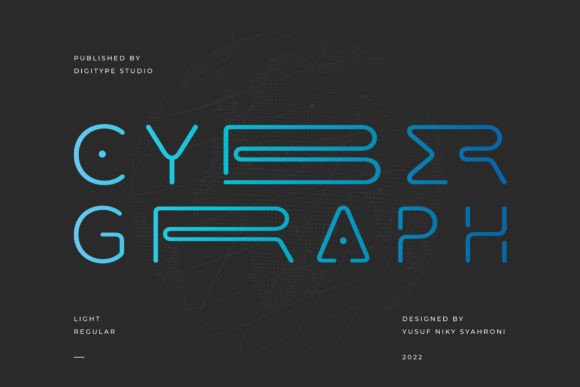
Escape the mundane and venture into a realm of digital allure with Cyber Graph Font, a sans serif masterpiece crafted by Digitype Studio. This font is not just a collection of letters; it's a gateway to a world of captivating designs, where imagination knows no bounds.
Cyber Graph's rounded futuristic strokes exude a modern and bold vibe, instantly transforming your designs into captivating works of art. Its meticulously designed curves evoke a sense of sleekness and sophistication, while its sharp angles add an edge of intrigue.
Cyber Graph is a versatile chameleon, effortlessly adapting to your creative vision. Whether you're designing logos, posters, website headers, or social media graphics, Cyber Graph seamlessly integrates, adding a touch of futuristic flair that's sure to leave a lasting impression.
With Cyber Graph as your design companion, you'll embark on a journey of limitless possibilities. Picture your designs taking center stage, captivating audiences with their bold and unconventional style. Your website will radiate with a modern edge, drawing visitors in and keeping them engaged. Your social media posts will ignite conversations, as your followers marvel at the unique and eye-catching visuals.
Cyber Graph is more than just a font; it's an investment in your creative arsenal. Embrace its futuristic charm and watch your designs soar to new heights. Unleash your imagination and let Cyber Graph guide you into a realm of captivating digital experiences.